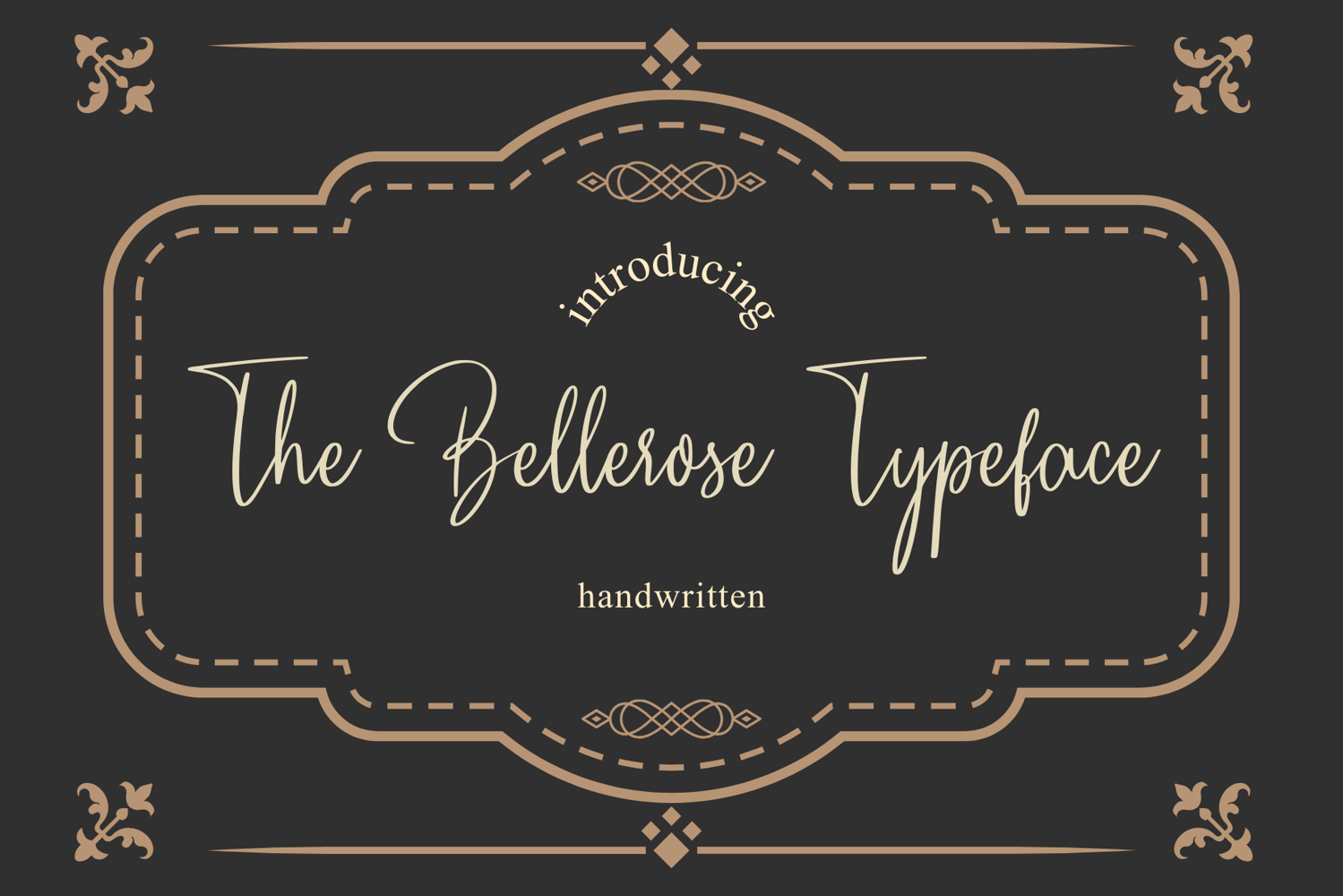
The Bellerose typeface
The Bellerose Typeface is a stunning vintage script font that captures the elegance and charm of a bygone era. With its flowing curves, delicate serifs, and timeless appeal, this font brings sophistication and personality to any design project. Inspired by classic calligraphy and old-world craftsmanship,
The Bellerose Typeface is perfect for wedding invitations, branding, logos, packaging, and any design that calls for a touch of vintage charm.
Whether you're creating elegant stationery, nostalgic posters, or romantic invitations, this script font exudes both grace and timelessness. Its versatile letterforms and beautiful flourishes make it a standout choice for anyone looking to infuse their work with a sense of classic beauty and refined style.